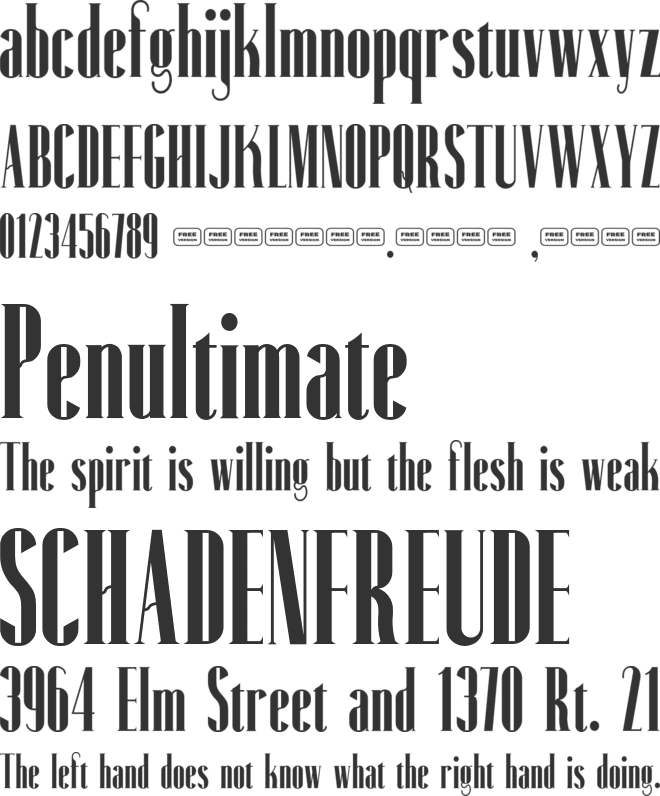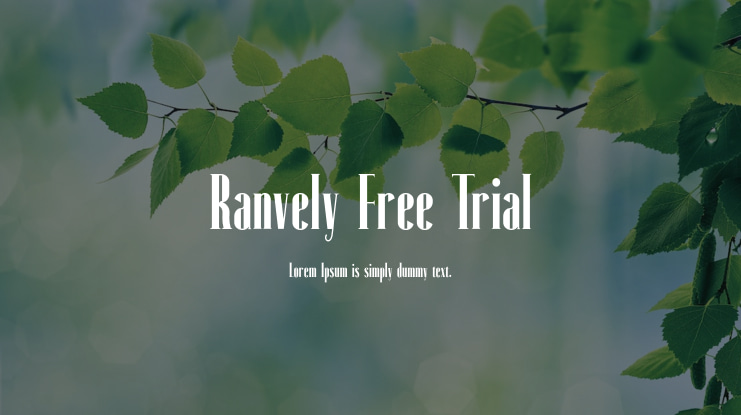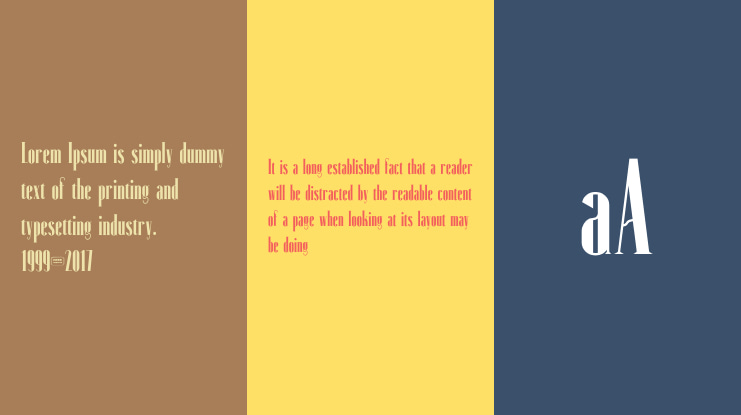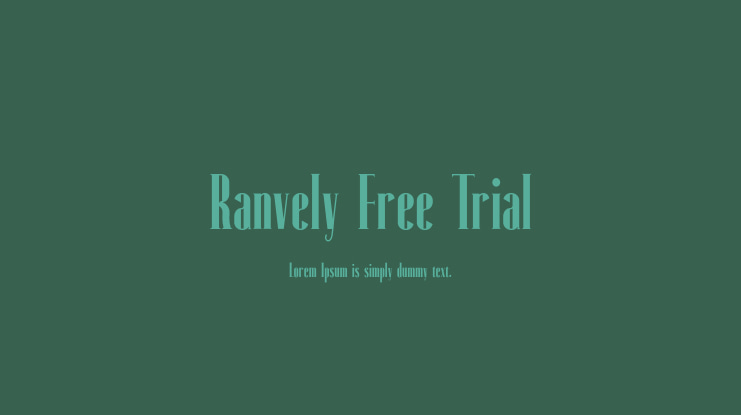
Ranvely Free Trial Font
Elevate your design projects with the exquisite charm and sophistication of "Ranvely" - a beautifully crafted serif typeface that stands the test of time!
Experience the grace and refinement of "Ranvely" as it adds a touch of timeless beauty to any creative endeavor. Each letterform has been meticulously designed to strike the perfect balance between elegance and readability, making it the perfect choice for luxurious branding, editorial layouts, wedding invitations, and more.
Unlock the versatility of "Ranvely" as it effortlessly elevates your design work. Whether you're creating stunning logos, stylish magazine covers, prestigious certificates, or refined stationery, this typeface will captivate your audience with its sophisticated and elegant style.
Embrace the allure of "Ranvely" and let your designs speak volumes with their timeless and elegant appeal.